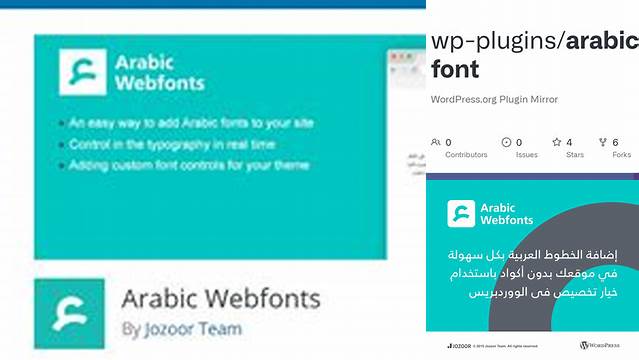
Choosing the right font can significantly impact the readability and visual appeal of your website, especially when dealing with languages like Arabic. If you're using WordPress and need to incorporate Arabic fonts, you'll want a reliable plugin to make the process smooth and efficient. This article will delve into everything you need to know about Arabic web fonts plugins for WordPress, ensuring your site looks fantastic and is easy to read.
1. Understanding the Importance of Arabic Web Fonts
When it comes to web design, the choice of font is paramount. It's not just about aesthetics; it's about readability, accessibility, and conveying the right tone and message. For websites that use Arabic script, the selection of appropriate Arabic web fonts is even more critical. Why? Because Arabic script has unique characteristics, such as its cursive nature and right-to-left writing direction. Using a font that isn't designed for Arabic can lead to rendering issues, poor readability, and a less-than-professional look. Imagine you're trying to read a beautifully written Arabic poem, but the letters are all jumbled and hard to distinguish. Frustrating, right? That’s why a dedicated Arabic web font is essential.
The Impact on User Experience
Think about the user experience (UX) for a moment. If your website is difficult to read, visitors are likely to leave quickly. A well-chosen Arabic web font ensures that your content is legible and visually appealing, keeping visitors engaged and encouraging them to explore further. A clear, elegant font can make your website feel trustworthy and professional. On the flip side, a poorly chosen font can make your site look amateurish and even untrustworthy. So, selecting the right font isn’t just about looks; it's about building trust and credibility with your audience. This is particularly crucial in regions where Arabic is the primary language, as users will have a strong expectation of visual quality and readability.
Ensuring Readability and Accessibility
Readability is key, especially for longer pieces of content. An Arabic web font designed for screen use will have clear, well-defined characters that are easy on the eyes. This is crucial for retaining your audience’s attention. Accessibility is another vital factor. A good font will ensure that users with visual impairments can easily read your content. This not only broadens your audience but also aligns with web accessibility guidelines, which are increasingly important for SEO and compliance. By focusing on readability and accessibility, you’re making your website a welcoming place for everyone.
Conveying the Right Tone and Message
The font you choose can also convey the personality and tone of your brand. A formal, traditional font might be perfect for a law firm, while a more modern, playful font might suit a creative agency. For Arabic content, the right font can enhance the cultural and emotional resonance of your message. It can evoke a sense of tradition, modernity, or sophistication, depending on the font style you select. So, think carefully about the message you want to convey and choose an Arabic web font that aligns with your brand’s identity and values. Using a font that complements your content will make your message more impactful and memorable.
2. What to Look for in an Arabic Web Fonts Plugin
Font Library and Variety
First and foremost, you want a plugin that offers a wide range of Arabic web fonts. Variety is the spice of life, right? The more options you have, the better you can match the font to your brand and content. Look for a plugin that includes both traditional and modern Arabic fonts, so you can find the perfect fit for your website’s style. Some plugins offer a curated selection, while others give you access to vast libraries like Google Fonts, which include many Arabic font options. Having this flexibility ensures you can keep your site looking fresh and engaging.
Ease of Use and Integration
Nobody wants to spend hours wrestling with complicated settings. A good Arabic web fonts plugin should be easy to use, even if you're not a tech whiz. Look for a plugin with a user-friendly interface that integrates seamlessly with the WordPress Customizer or your favorite page builder. This allows you to preview changes in real-time, making the font selection process much smoother. You want to be able to easily apply fonts to different parts of your website, such as headings, body text, and menus, without any coding headaches. A simple, intuitive plugin will save you time and frustration, letting you focus on creating great content.
Performance and Loading Times
Here’s a crucial one: performance. A plugin might have all the fancy fonts in the world, but if it slows down your website, it's a no-go. Website speed is vital for user experience and SEO. Choose a plugin that optimizes font loading to ensure your pages load quickly. Some plugins use techniques like font subsetting (only loading the characters you need) or asynchronous loading (loading fonts in the background) to minimize the impact on your site’s speed. Always check reviews and test the plugin on a staging site to see how it affects your site's performance before making it live. Remember, a fast website keeps visitors happy and Google impressed.
Compatibility and Updates
Make sure the plugin you choose is compatible with your WordPress theme and other plugins. Compatibility issues can lead to all sorts of problems, from layout glitches to site crashes. Also, check when the plugin was last updated. A recently updated plugin is more likely to be secure and compatible with the latest version of WordPress. Developers who actively maintain their plugins are also more likely to provide good support if you run into any issues. Regular updates ensure that the plugin stays ahead of the curve, incorporating new features and security patches. So, keep an eye on that “last updated” date!
1. Google Fonts Plugin for WordPress
When it comes to web fonts, Google Fonts is a powerhouse. And guess what? There are several plugins that make it super easy to integrate Google Fonts into your WordPress site, including Arabic fonts. These plugins typically allow you to browse the Google Fonts library directly from your WordPress dashboard, preview fonts in real-time, and apply them to different elements of your site. It’s like having a font buffet at your fingertips! Plus, Google Fonts are free and open-source, which is a huge win for budget-conscious website owners. One popular plugin for this is the